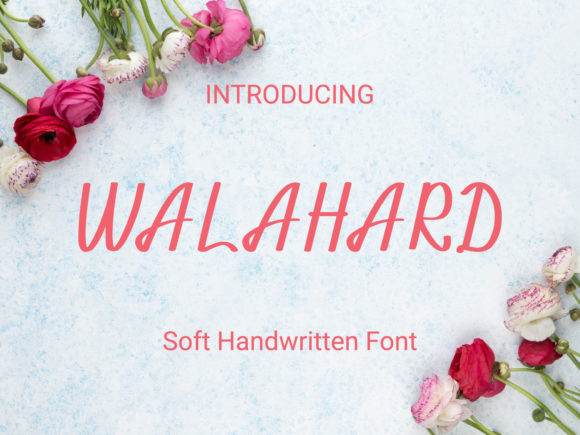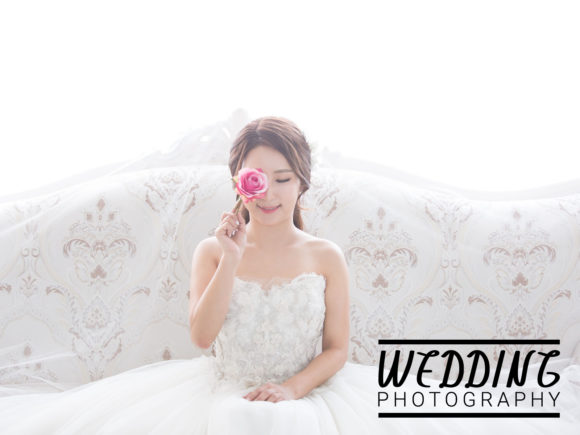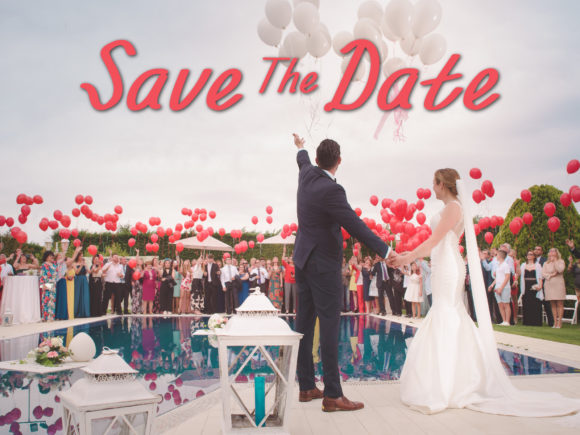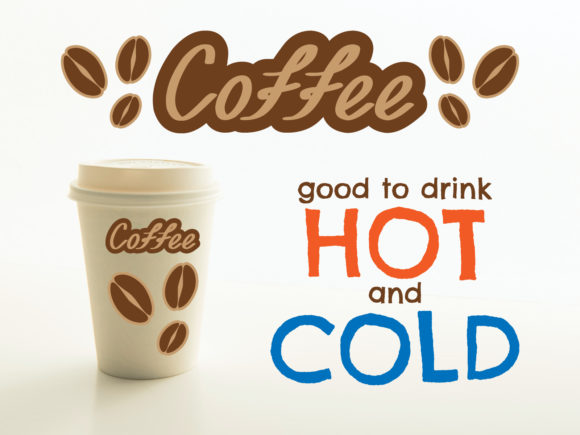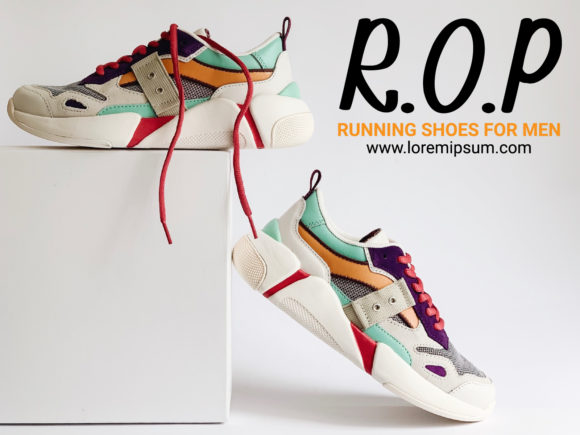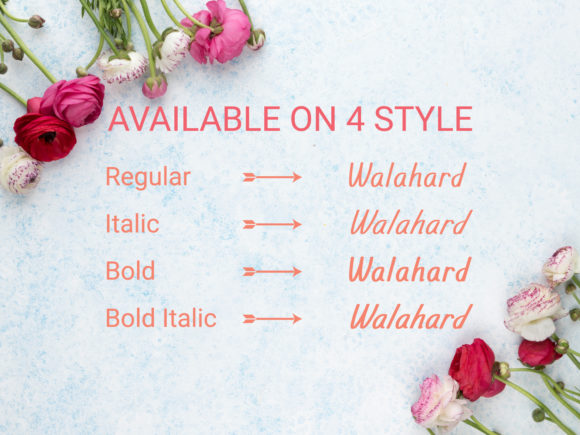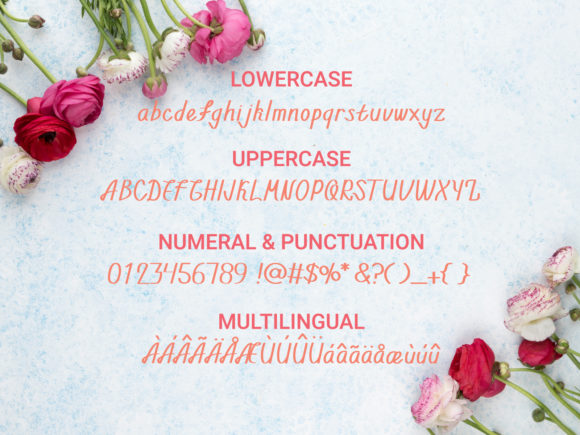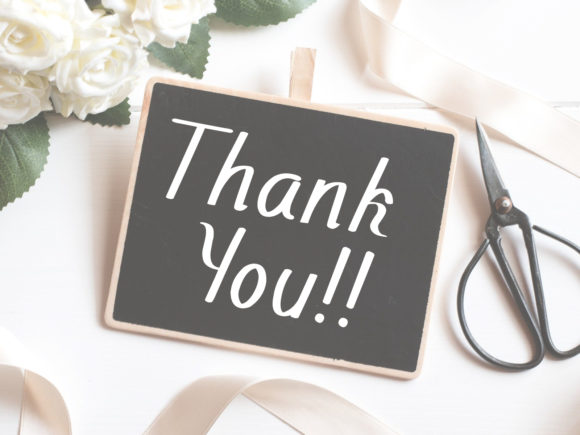
Walahard Font
About Walahard Font
Walahard is a sweet, soft handwritten font. Get inspired by its authentic feel and use it to create gorgeous wedding invitations, beautiful stationary art, eye-catching social media posts, and cute greeting cards.